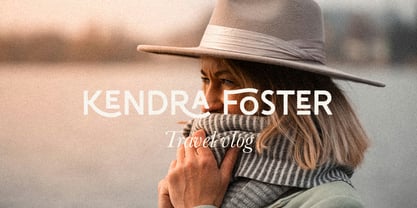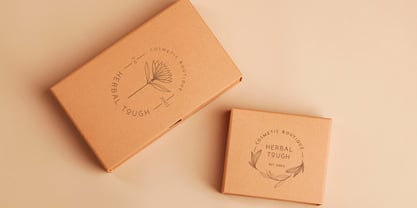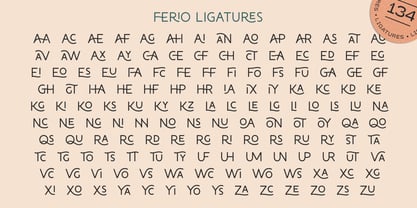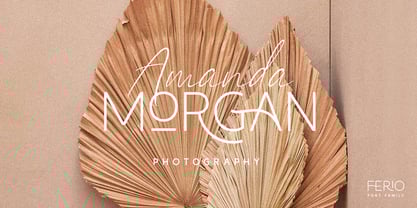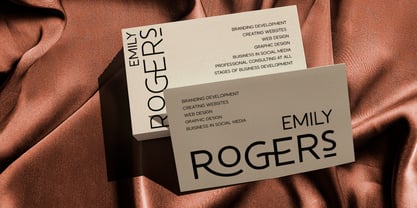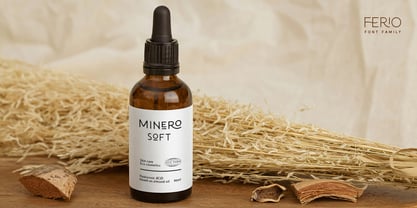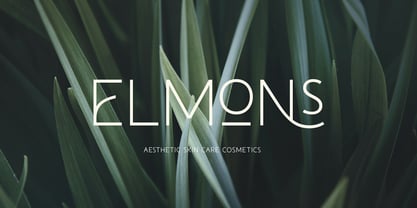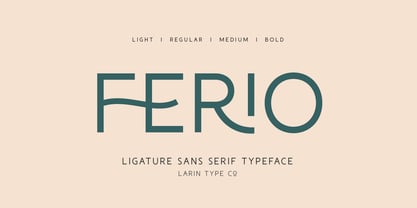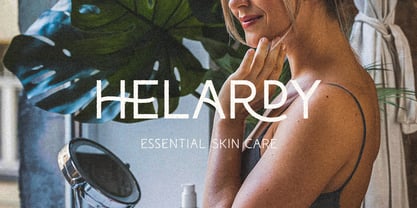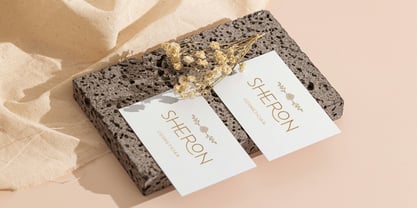
Ferio
by Larin Type Co
The Ferio Font Family was designed by Pavel Larin and published by Larin Type Co. Ferio contains 4 styles and family package options.
Ferio is an elegant, modern sans-serif font family, and a great fashionable solution for your project. It includes four weights (light, regular, medium, bold). This is a modern stylish and bright logo font it includes many alternatives and ligatures with which you can play and choose the option that suits you. With it, you can create logos, banners, use in advertising, packaging, book covers and magazines, headings, descriptions and much. The uppercase completely duplicates the lowercase including alternatives and ligatures.
Designers: Pavel Larin
Publisher: Larin Type Co
Foundry: Larin Type Co